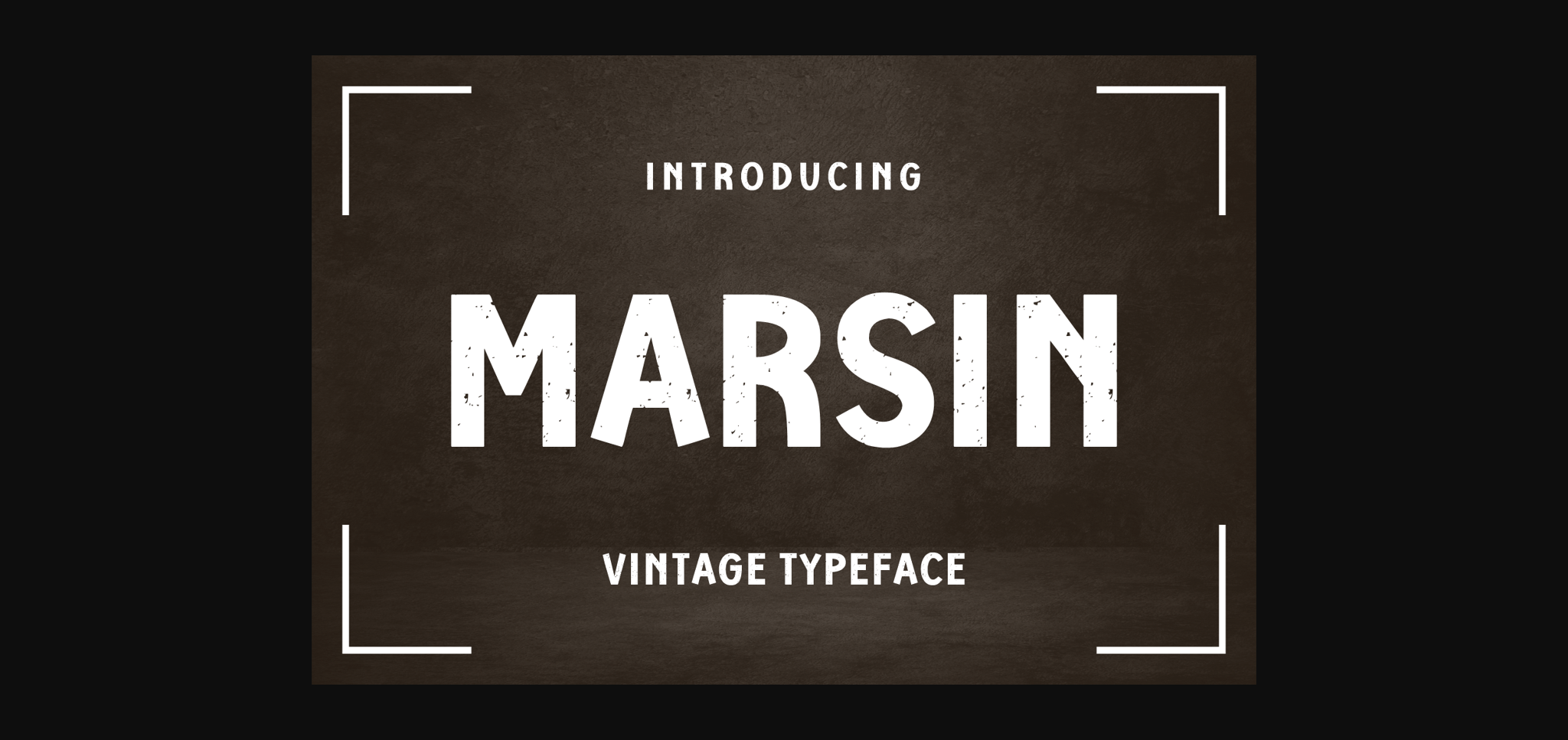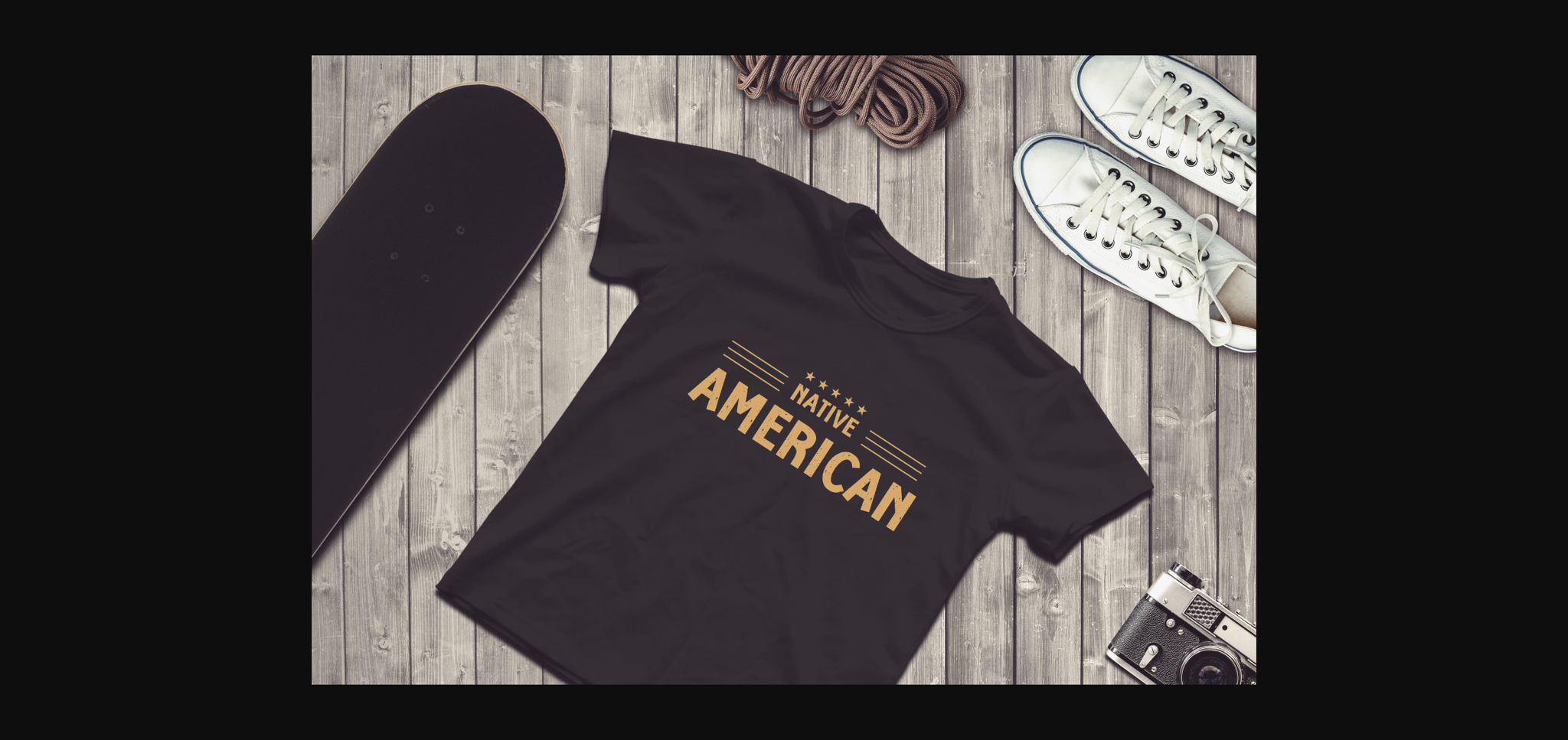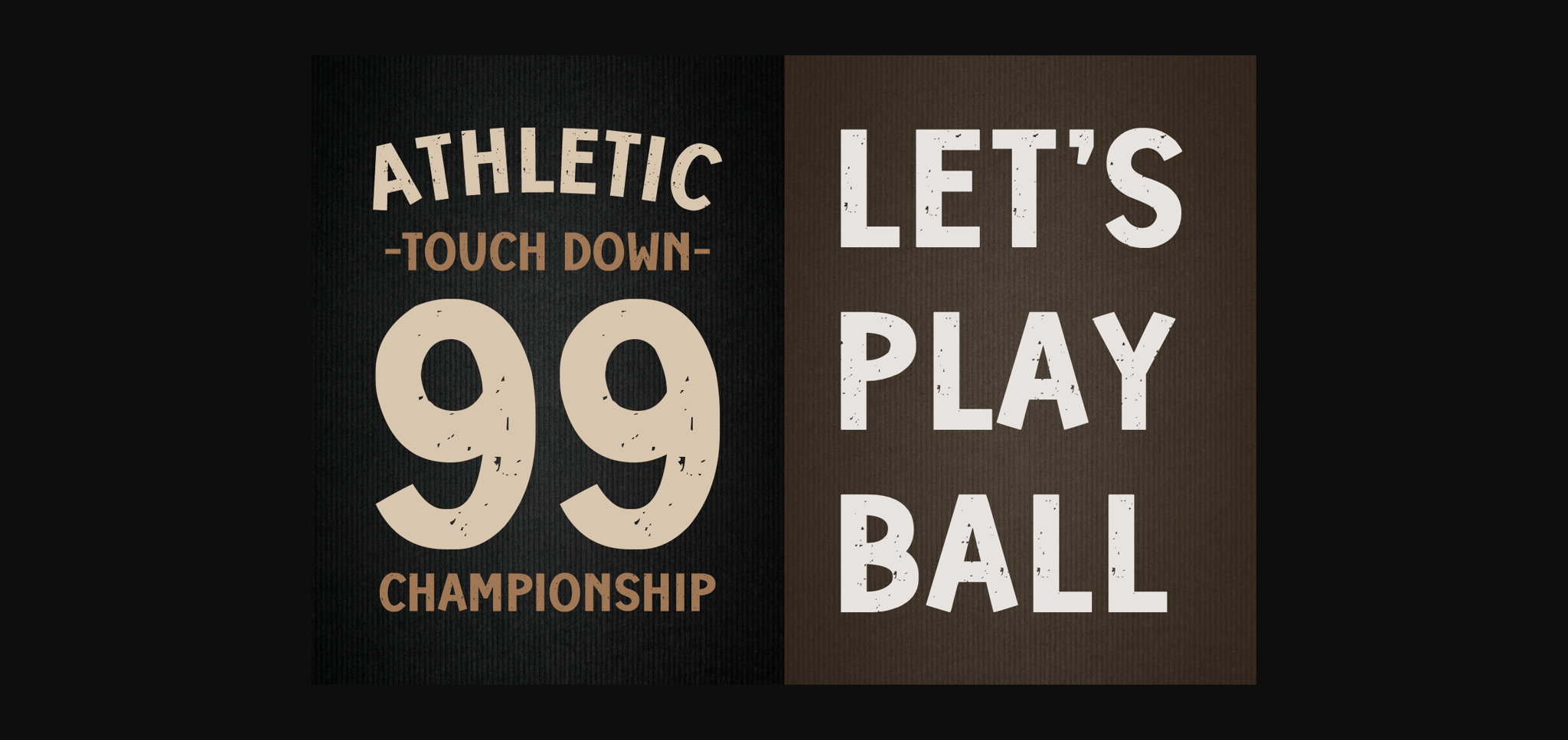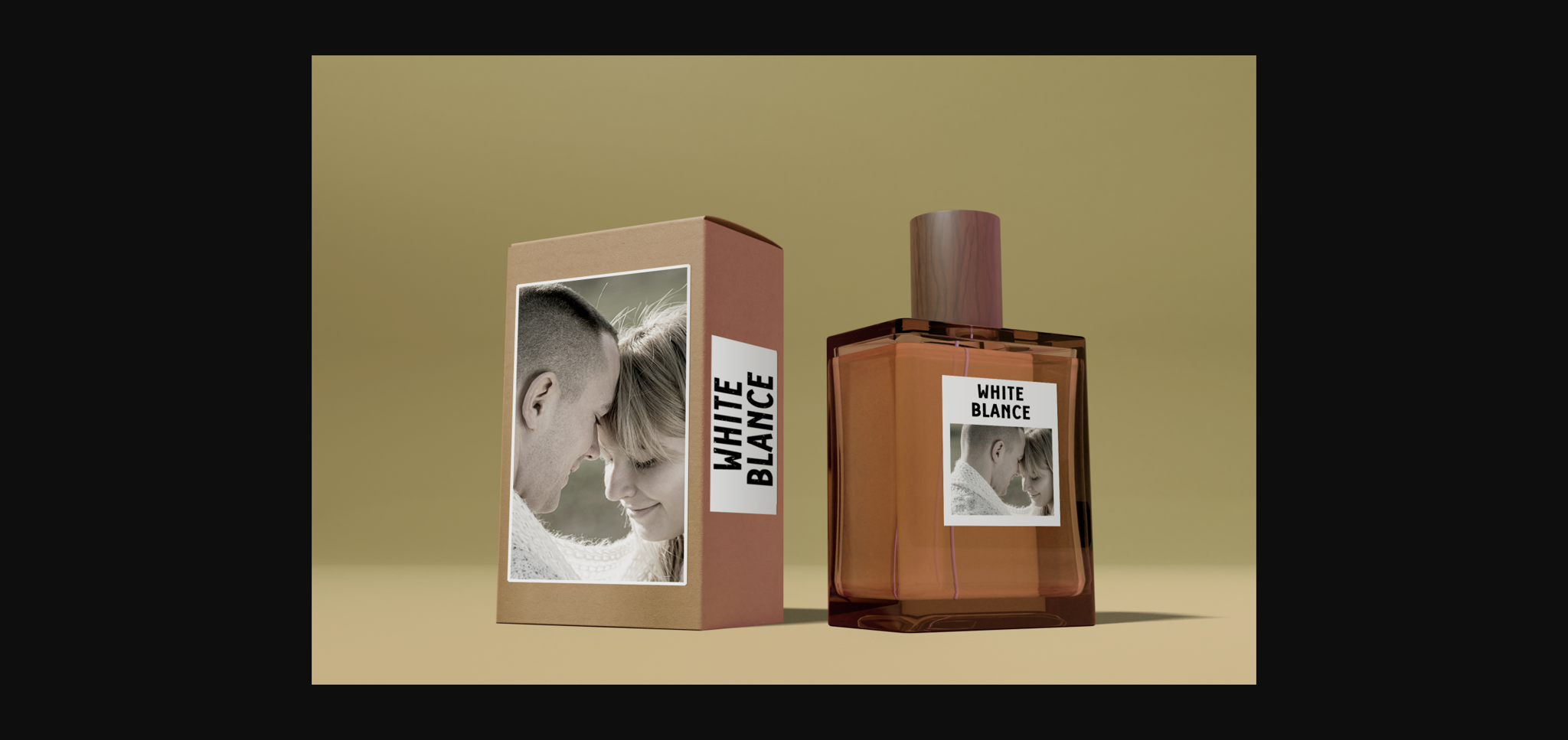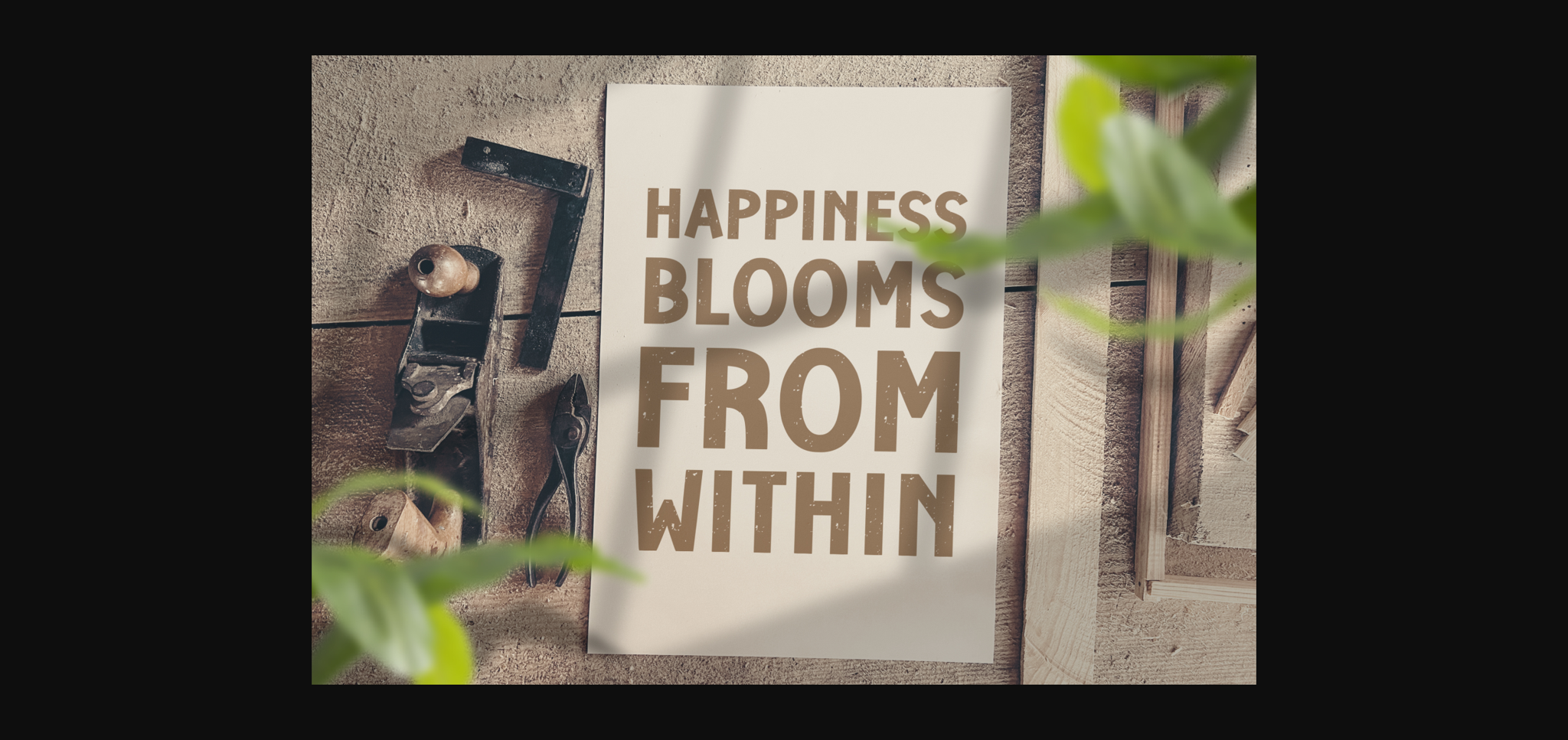
Marsin Font
About Marsin Font
Marsin is a bold vintage typeface that brings a touch of old-school charm to your designs. Its strong and distinctive letterforms exude character and make a statement. Perfect for adding a retro flair to posters, logos, and headlines, Marsin captures the essence of classic typography with its timeless appeal. Whether you’re creating a vintage-inspired project or aiming for a bold impact, Marsin delivers with style and sophistication.